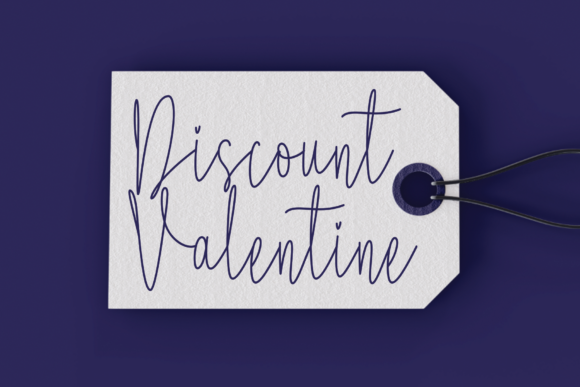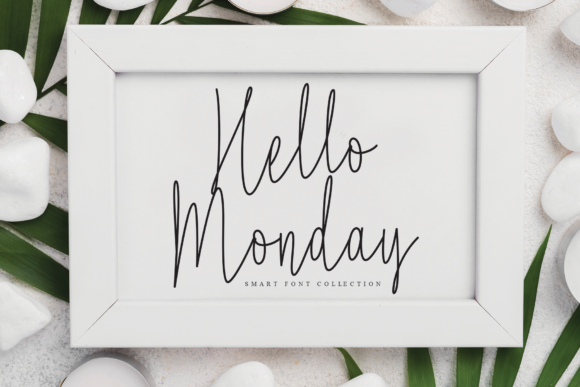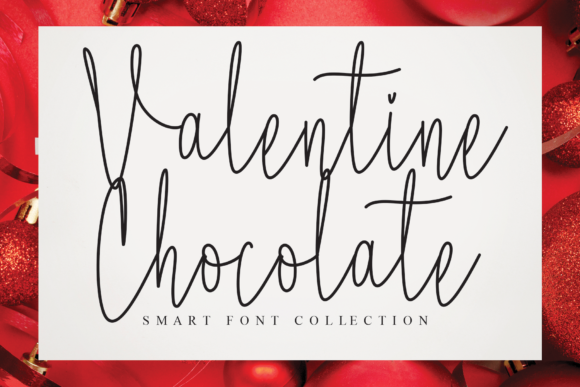
Introducing Amsterdam Signature Font: Elevate Your Designs with Elegance
In the world of design, typography plays a crucial role in conveying the message and aesthetic of a project. Whether you’re working on a branding campaign, crafting a unique invitation, or designing a logo, the right font can make all the difference. This is where the Amsterdam Signature Font comes into play, offering a blend of uniqueness, elegance, and versatility that can elevate any design.
What is Amsterdam Signature Font?
Amsterdam Signature is a unique and elegant handwritten font that has been crafted to add a touch of sophistication to your designs. Characterized by its clean, thin, and smooth vibe, this font is perfect for designers and crafters looking to infuse their projects with a personal and luxurious feel. Its elegant strokes and fluid connections make it stand out, providing a distinctive look that can set your designs apart from the rest.
Key Features of Amsterdam Signature Font
- Unique and Elegant: The Amsterdam Signature Font boasts a one-of-a-kind design that exudes elegance. Its unique character ensures that your designs will have a personalized touch that captivates your audience.
- Clean, Thin, and Smooth: The clean lines, thin strokes, and smooth curves of this font contribute to its sophisticated appearance. This makes it highly versatile, suitable for a wide range of design applications.
- High Versatility: Whether you’re working on a logo, an invitation, a branding campaign, or any other design project, the Amsterdam Signature Font can be seamlessly integrated. Its adaptability ensures that it complements various design themes and styles.
- User-Friendly: Designed with the user in mind, Amsterdam Signature Font is easy to work with, making it accessible for both professional designers and hobbyists.
Applications of Amsterdam Signature Font
The Amsterdam Signature Font’s versatility means it can be used in a multitude of design projects. Here are some popular applications:
- Logos and Branding: Create a lasting impression with a unique logo that incorporates the Amsterdam Signature Font, setting the tone for your brand’s identity.
- Invitations and Stationery: Add an elegant touch to your invitations, greeting cards, and stationery with this beautiful font.
- Advertising and Marketing Materials: Use the Amsterdam Signature Font in your brochures, flyers, and posters to give your marketing materials a sophisticated edge.
- Digital Media: Enhance your website, social media graphics, and email newsletters with the distinctive look of this font.
Tips for Using Amsterdam Signature Font
To maximize the impact of the Amsterdam Signature Font in your designs, consider the following tips:
- Pair with Complementary Fonts: Combine Amsterdam Signature with simpler fonts to create contrast and make your design more dynamic.
- Adjust Size and Color: Experiment with different sizes and colors to ensure the font complements your design’s overall aesthetic.
- Use in Headers and Titles: The elegance of Amsterdam Signature makes it perfect for headers and titles, drawing attention and adding a touch of class to your content.
The Amsterdam Signature Font is a valuable addition to any designer’s toolkit. Its unique blend of elegance, versatility, and user-friendliness makes it an excellent choice for a wide range of projects. By incorporating this font into your designs, you can add a touch of sophistication and distinction that sets your work apart. Whether you’re a professional designer or a crafting enthusiast, the Amsterdam Signature Font is sure to become one of your go-to choices for creating stunning and impactful designs.